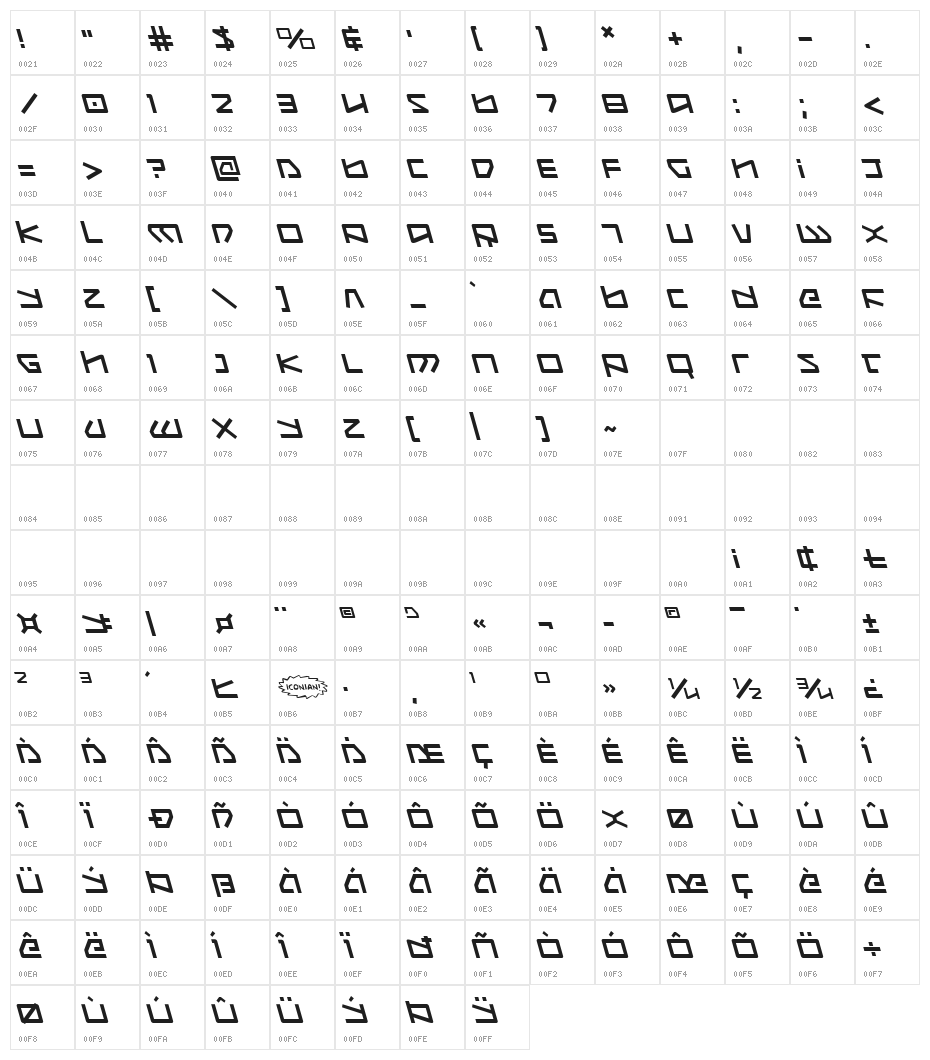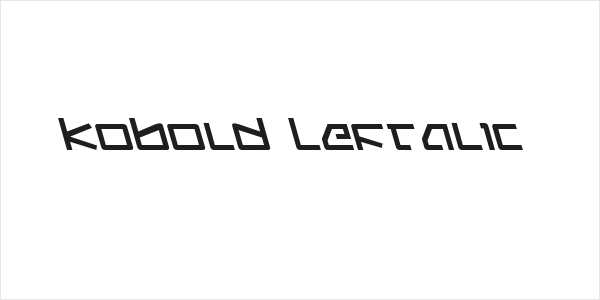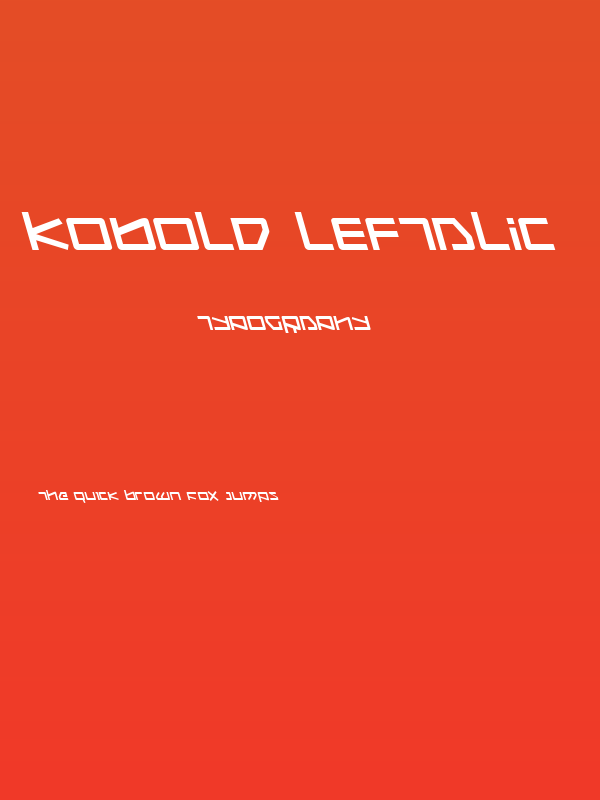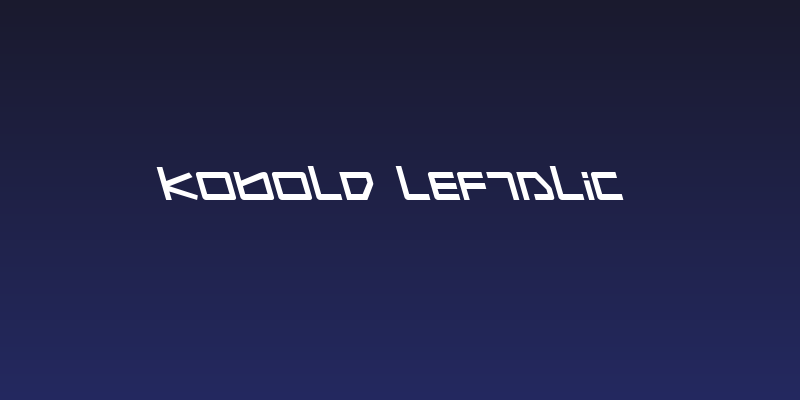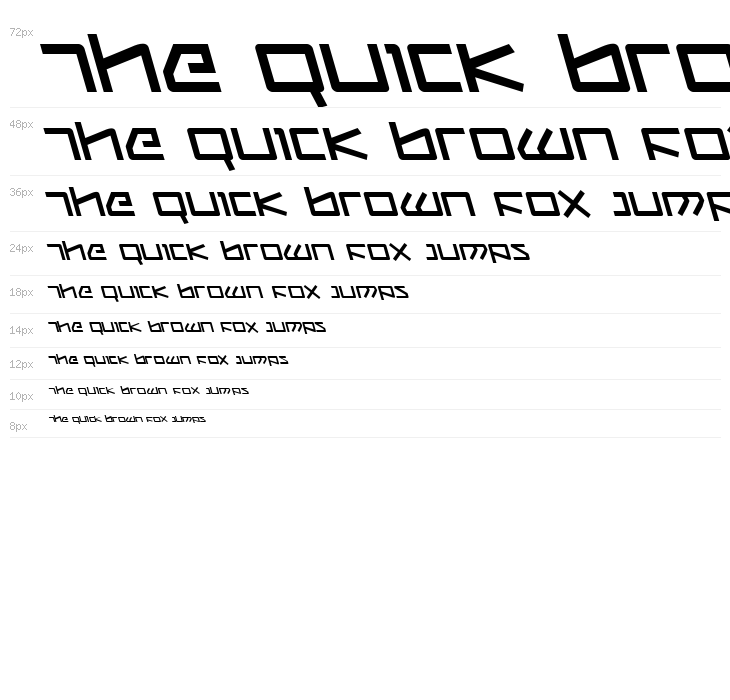
Kobold Leftalic Font
Kobold Leftalic Description
This font features a bold and angular design, characterized by its geometric shapes and sharp edges. The letters are slightly slanted, giving a dynamic and forward-moving appearance. The uppercase and lowercase letters maintain a consistent style, with a strong emphasis on straight lines and acute angles. Numbers and special characters follow the same design principles, ensuring uniformity across the typeface. The overall look is modern and futuristic, making it suitable for projects that require a bold and distinctive visual impact.
| Proposed Projects | Ideal for technology branding, video game titles, sci-fi movie posters, and modern digital interfaces. |